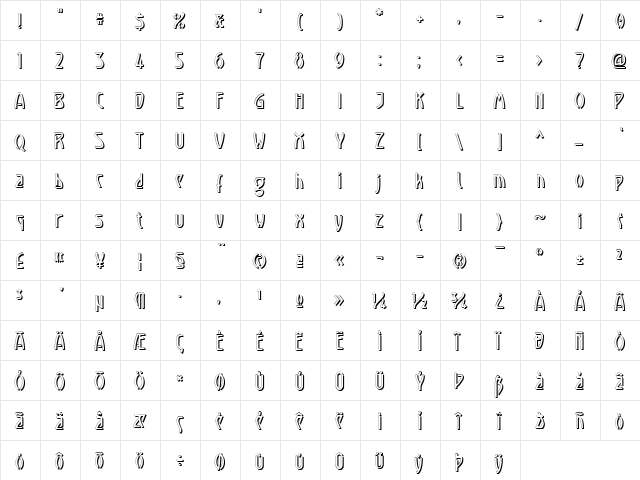
Luxembourg 1910 Ombre Regular
| Foundry | Peter Wiegel |
| Designer | Peter Wiegel |
Design Context for Luxembourg 1910 Ombre Typeface
Luxembourg 1910 Ombre is a composed and adaptable typeface that performs quietly and consistently across a wide range of design contexts.